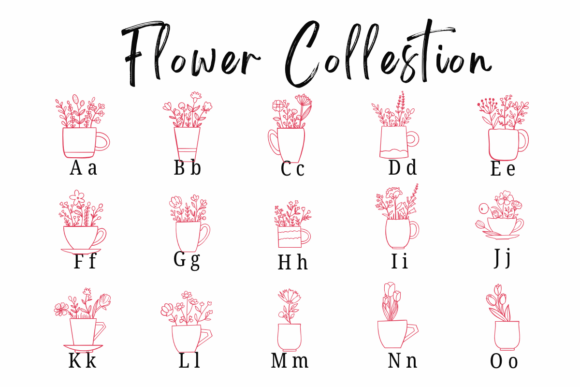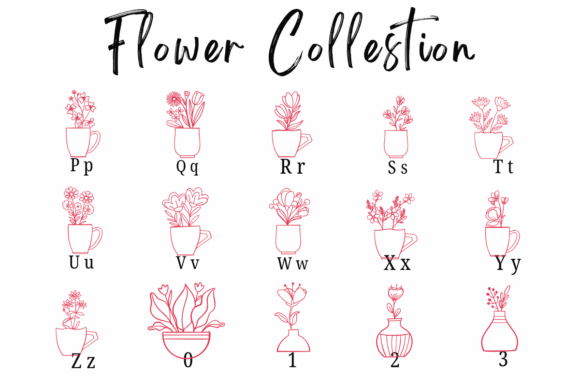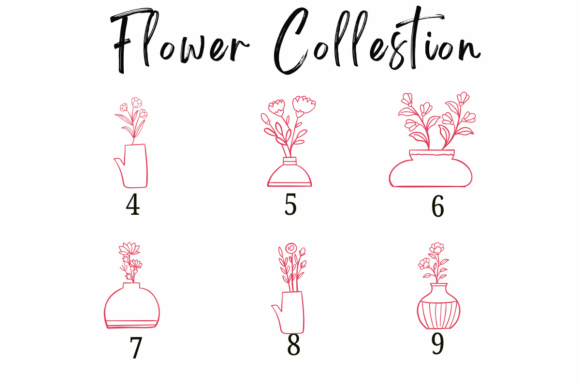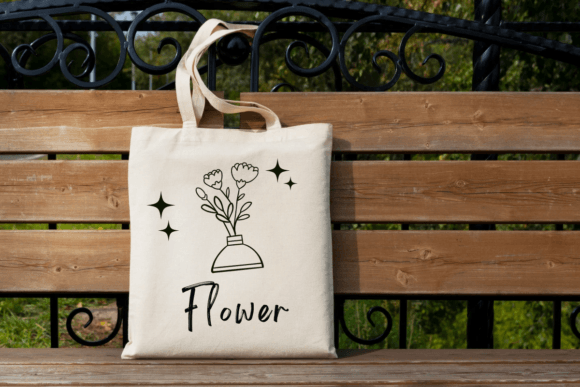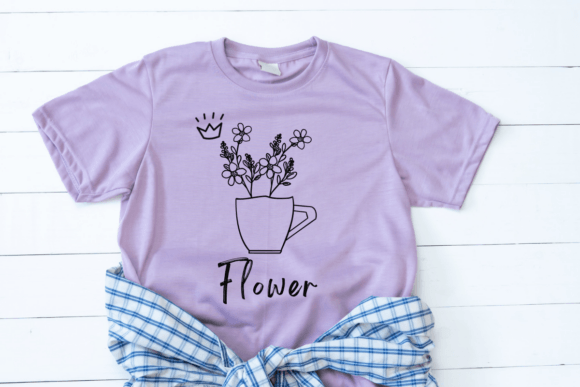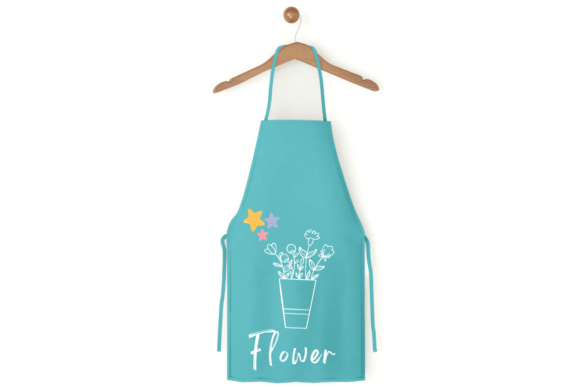
Introducing Flower Collestion Font: Add a Touch of Nature to Your Designs
Are you tired of using the same old fonts in your designs? Do you want to add a touch of whimsy and playfulness to your projects? Look no further than the Flower Collestion Font! This fun and unique font features cute flowers in pots, making it perfect for designers and crafters who want to bring a little bit of nature into their work.
What is Flower Collestion Font?
Flower Collestion Font is a decorative font that features cute flowers in pots. Each letter and symbol is carefully designed to showcase a different flower, making your writing look cheerful and colorful. The font is perfect for adding a touch of nature to your projects, whether you’re working on a graphic design, crafting a handmade card, or creating a blog post.
Key Features of Flower Collestion Font
- Unique and Whimsical Design: Each letter and symbol is decorated with a different flower design, making the font truly one-of-a-kind.
- Cute and Colorful: The font features bright and cheerful colors that are sure to add a pop of fun to your designs.
- Perfect for a Variety of Projects: Whether you’re working on a graphic design, crafting a handmade card, or creating a blog post, Flower Collestion Font is the perfect choice.
Uses for Flower Collestion Font
Flower Collestion Font is perfect for a wide range of projects, including:
- Graphic Design: Add a touch of whimsy to your graphic designs, such as brochures, flyers, and posters.
- Handmade Cards and Gifts: Use the font to create personalized and unique handmade cards and gifts.
- Blog Posts and Social Media: Add a pop of color and fun to your blog posts and social media graphics.
- Crafting and Scrapbooking: Use the font to add a personal touch to your crafting and scrapbooking projects.
Why Choose Flower Collestion Font?
There are many reasons why you should choose Flower Collestion Font for your next project. Here are just a few:
- Stand Out from the Crowd: The unique and whimsical design of the font will help your project stand out from the crowd.
- Add a Touch of Nature: The font’s natural and earthy theme will add a touch of warmth and coziness to your project.
Tips for Using Flower Collestion Font
Here are a few tips for using Flower Collestion Font:
- Use it Sparingly: While the font is fun and playful, it can be overwhelming if used too much. Use it sparingly to add a touch of whimsy to your project.
- Pair it with Other Fonts: Pair the font with other fonts to create a unique and interesting combination.
- Experiment with Colors: Experiment with different colors to find the perfect combination for your project.
Flower Collestion Font is a fun and unique font that is perfect for designers and crafters who want to add a touch of nature to their projects. With its whimsical design and bright colors, it’s sure to add a pop of fun to any project. Whether you’re working on a graphic design, crafting a handmade card, or creating a blog post, Flower Collestion Font is the perfect choice.